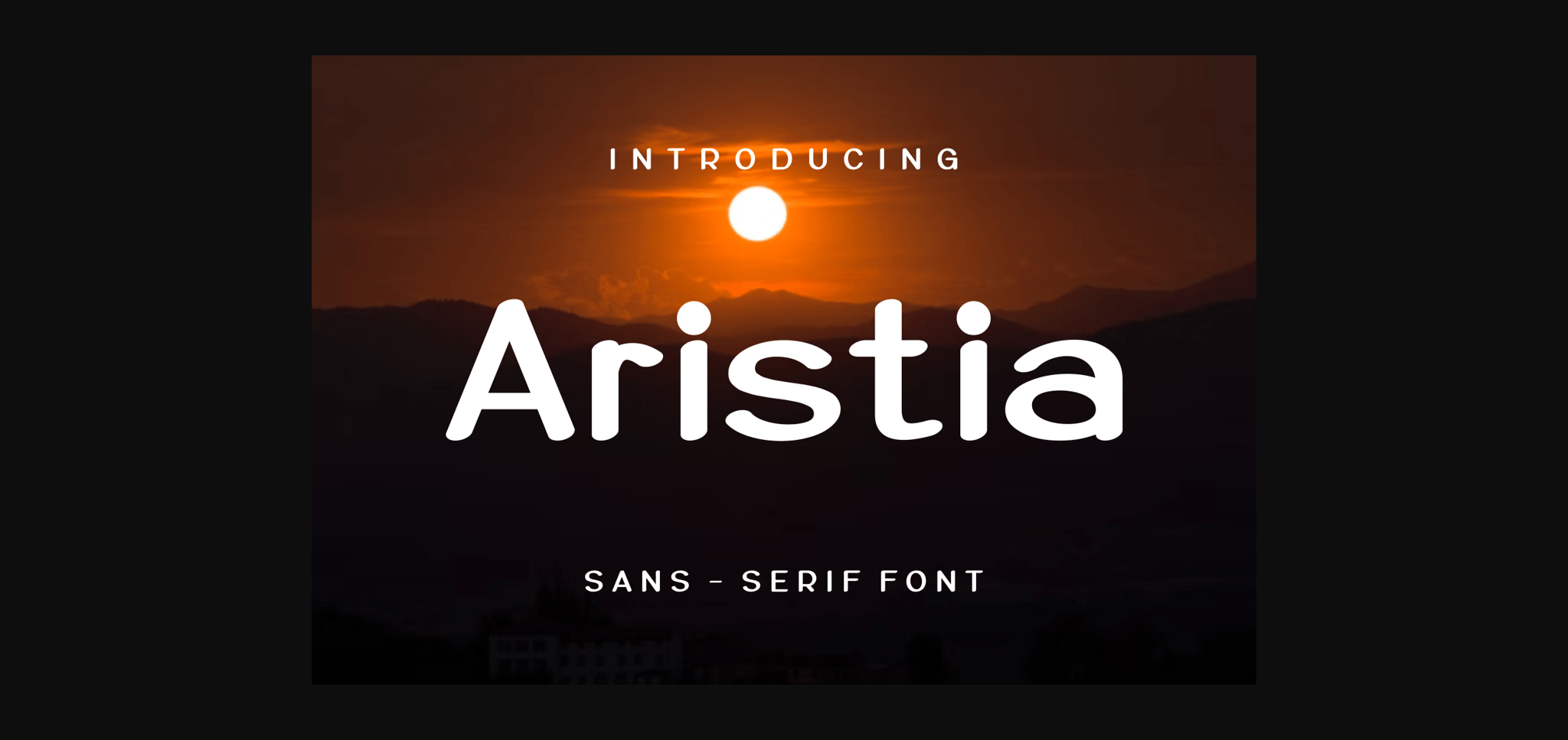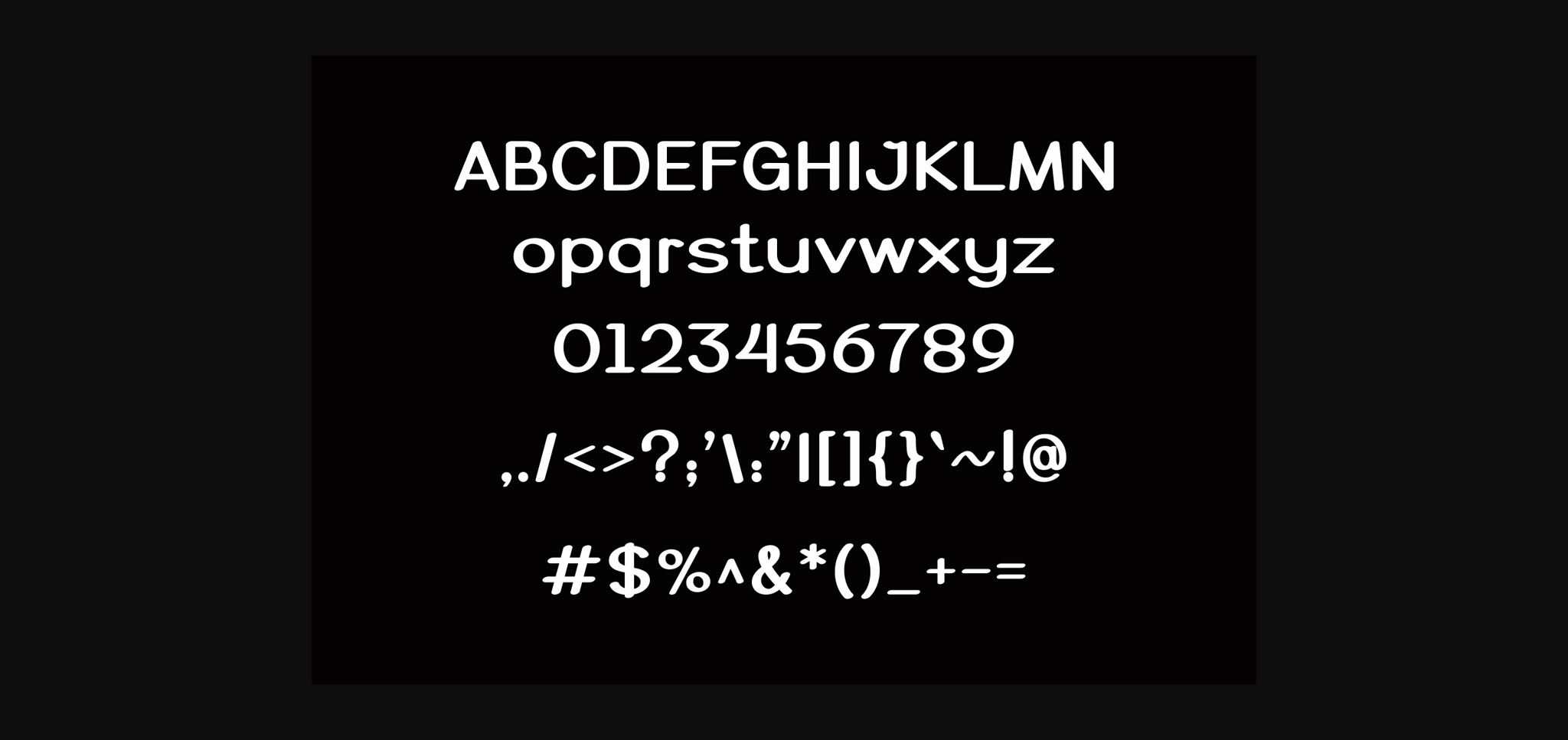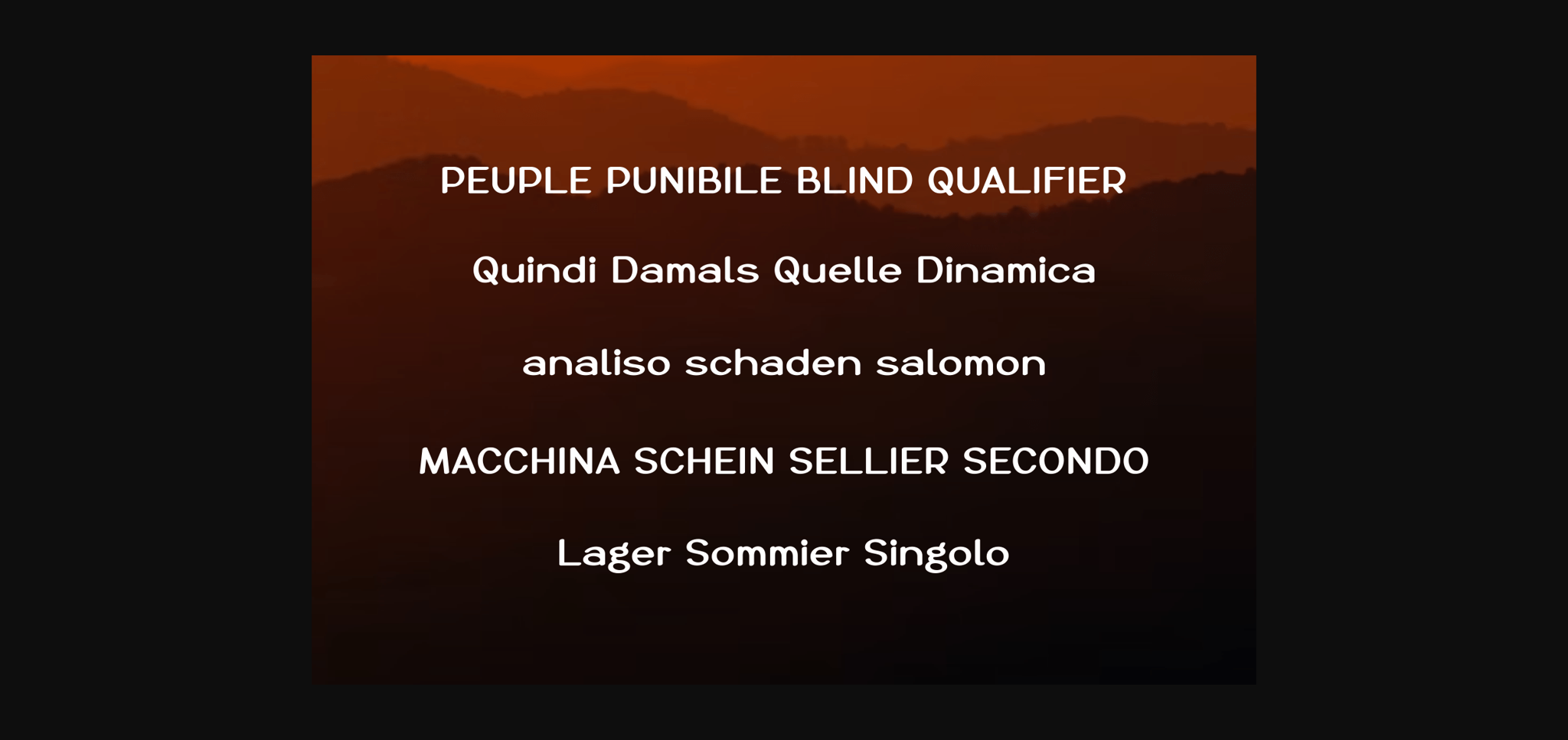
Aristia Font
About Aristia Font
Aristia is a cool and modern sans serif font. No matter the topic, this font will be an incredible asset to your fonts’ library, as it has the potential to elevate any creation.